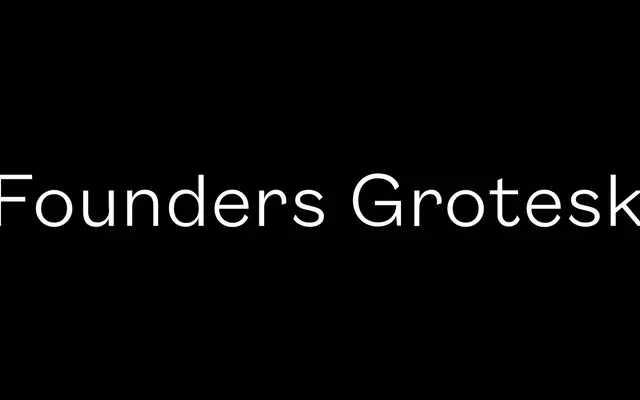
Founders Grotesk Text
Klim Type Foundry · Kris Sowersby · 2013
The text cut of Founders Grotesk, with five weights and italics tuned for body copy in editorial and brand systems.
The text cut of Founders Grotesk, by Kris Sowersby, redrawn from the parent grotesque so it holds shape at body sizes. Five weights from Light to Bold across ten styles include true italics, with the same lineage of Miller & Richard's Grotesque series, Caslon's Doric and Helvetica's Halbfett headline cuts. Used as the workhorse text companion in brand and editorial systems where Founders Grotesk runs the headlines, with Condensed, X-Condensed and Mono extending the family.
Klim classifies it as Modern: Lineal/Grotesque; the text-sized cut of Founders Grotesk, with the same lineage as the wider family but tuned for body copy.